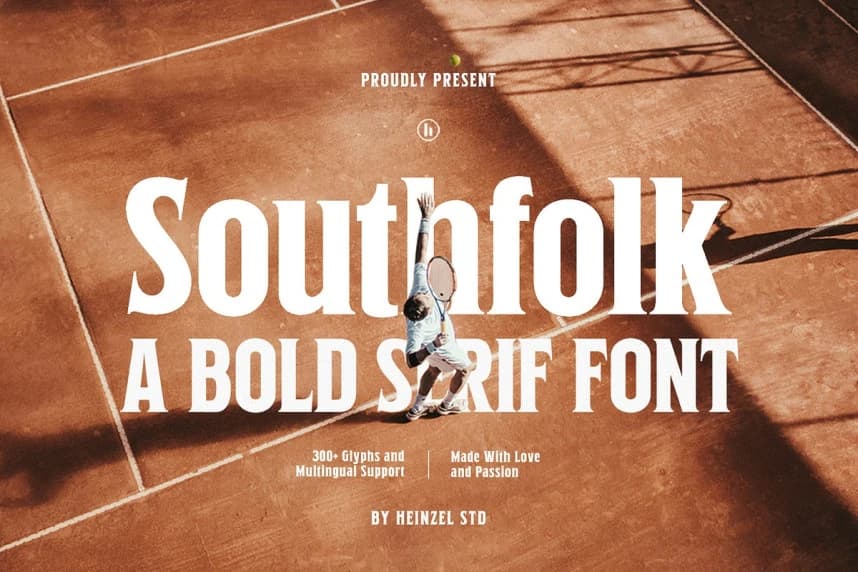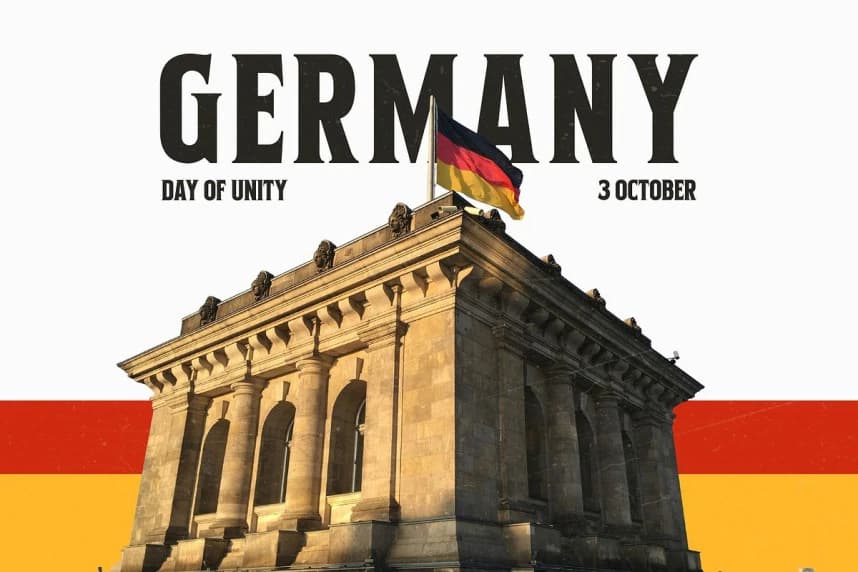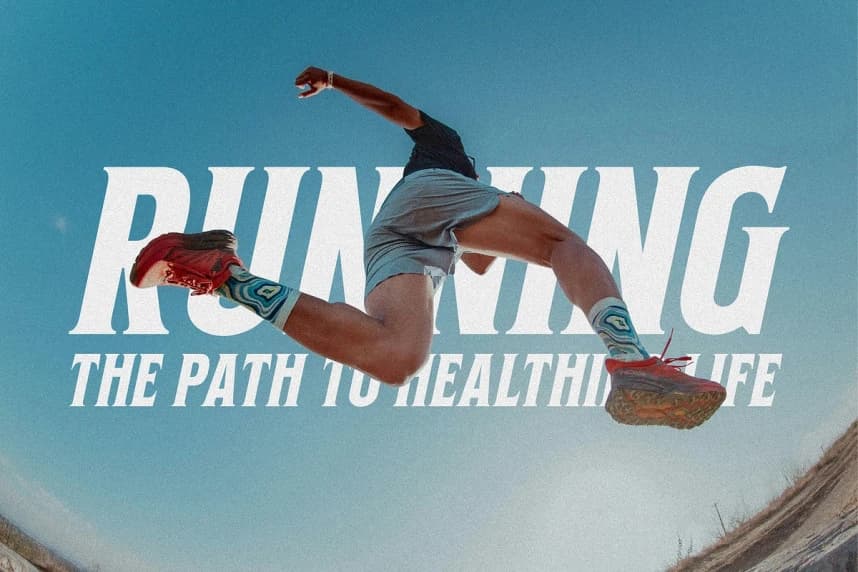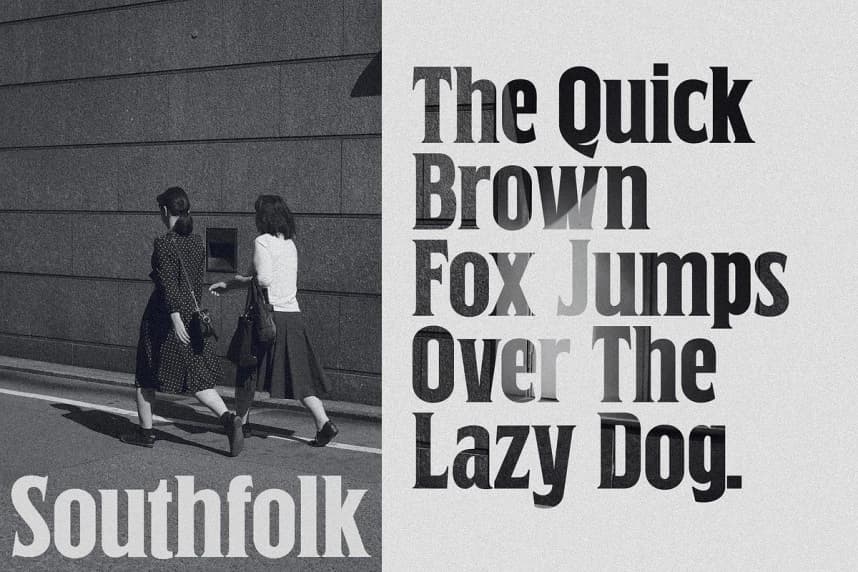
Southfolk Font
Southfolk Font is a powerful bold serif font designed to make a strong and confident statement. With its sturdy letterforms, sharp serifs, and balanced proportions, Southfolk delivers a classic yet modern aesthetic perfect for branding, editorial design, logos, headlines, packaging, posters, and sports-themed projects.